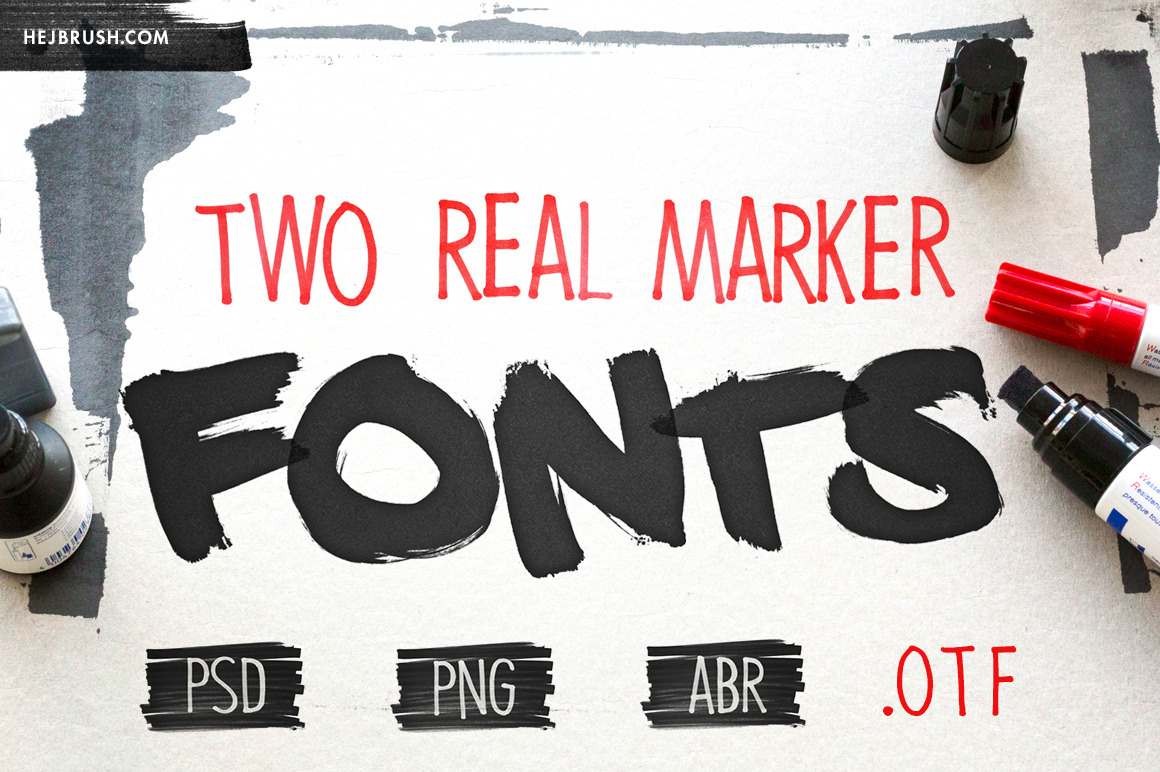
TWO REAL MARKER FONTS
I've been asked if the real marker fonts I've used for my shop displays are available. Well, now they are. They come in maximum information depth - as PSD, PNGs and ABR at high resolution.